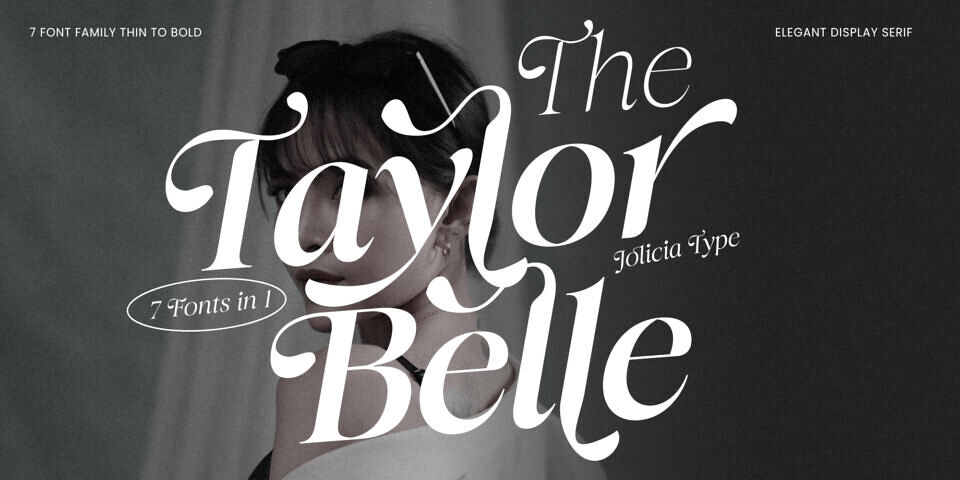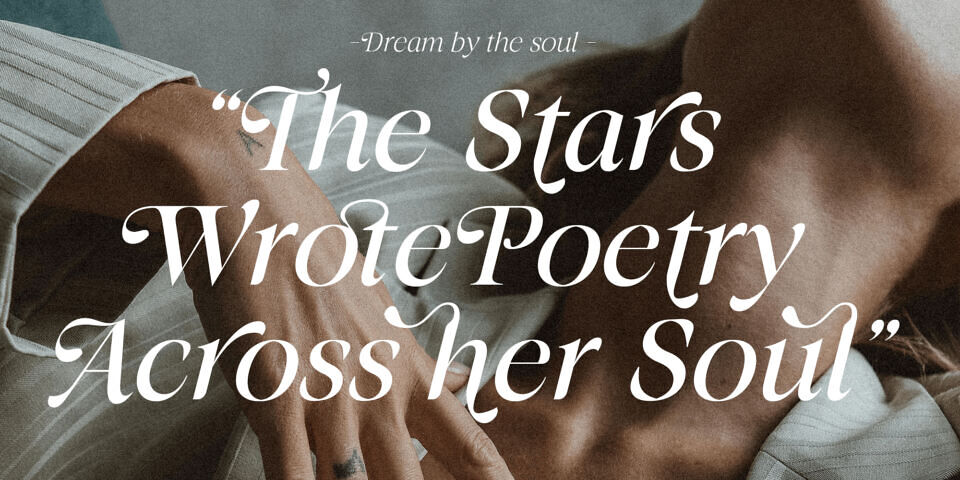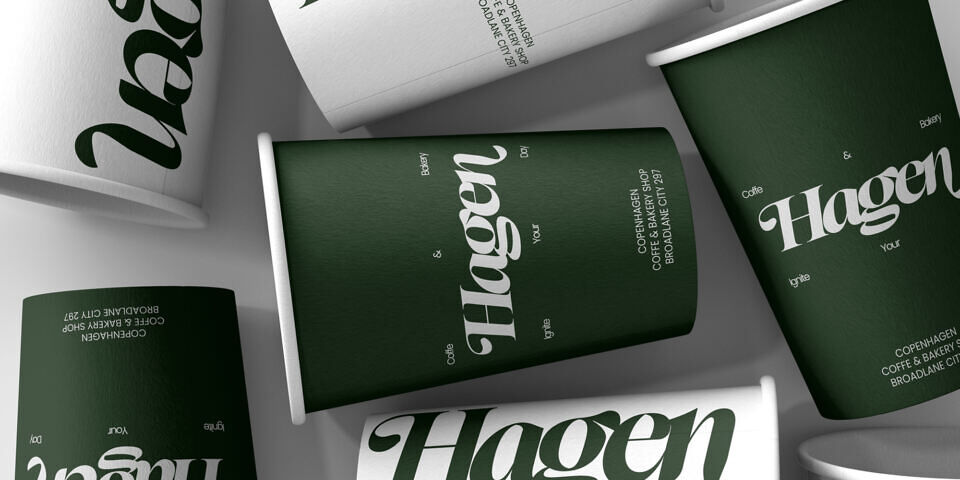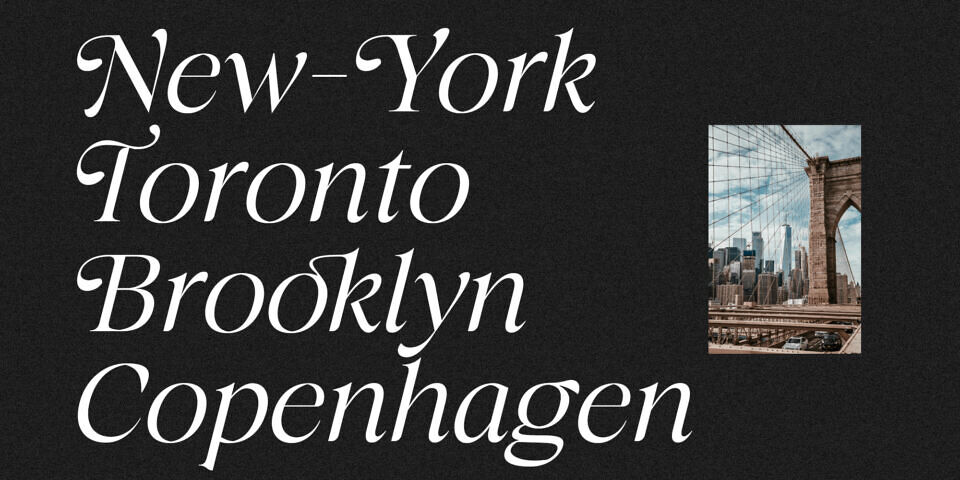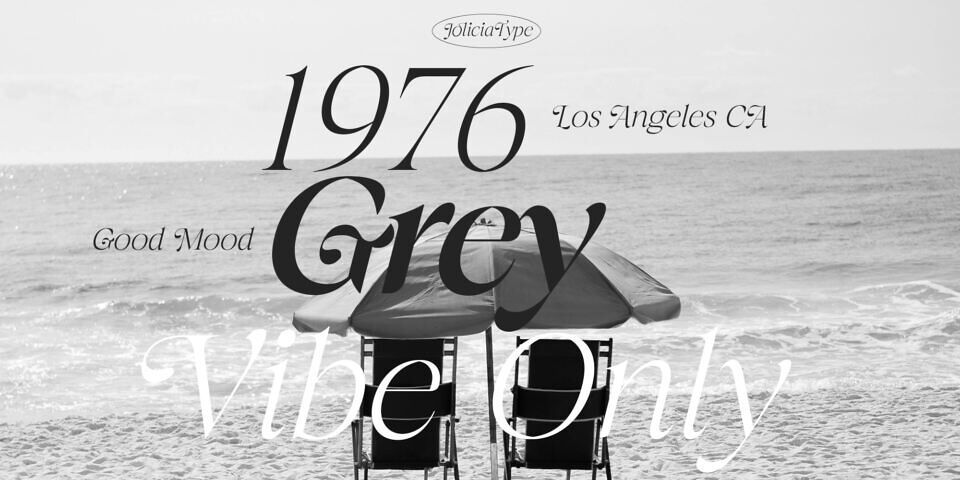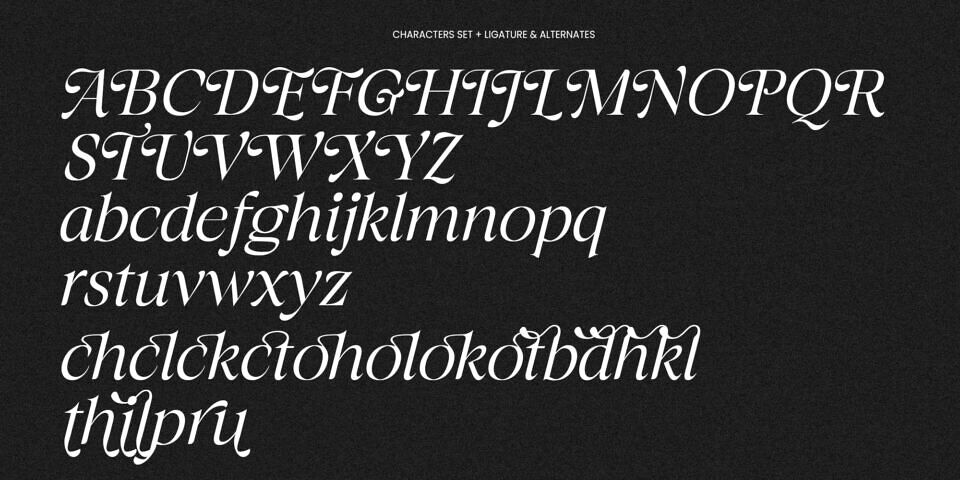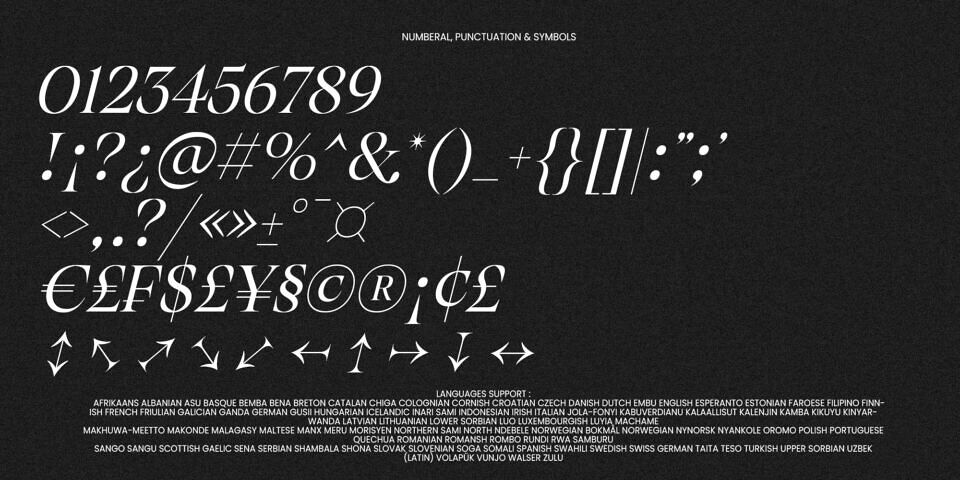
Taylor Belle is a captivating serif display font that radiates femininity and timeless elegance. Designed with graceful curves and refined details, its uppercase letters feature delicate swirls and flowing strokes that add a touch of sophistication and beauty.
Enhanced with 17 OpenType alternates and 8 elegant ligatures, Taylor Belle allows you to explore creative typographic variations, adding a unique and artistic touch to your designs. The true italic style further elevates its charm, providing a more romantic and stylish look for invitations, branding, or editorial layouts.
Perfect for fashion, beauty, wedding stationery, and high-end branding, Taylor Belle is the ultimate choice for projects that require a luxurious, feminine, and modern aesthetic.